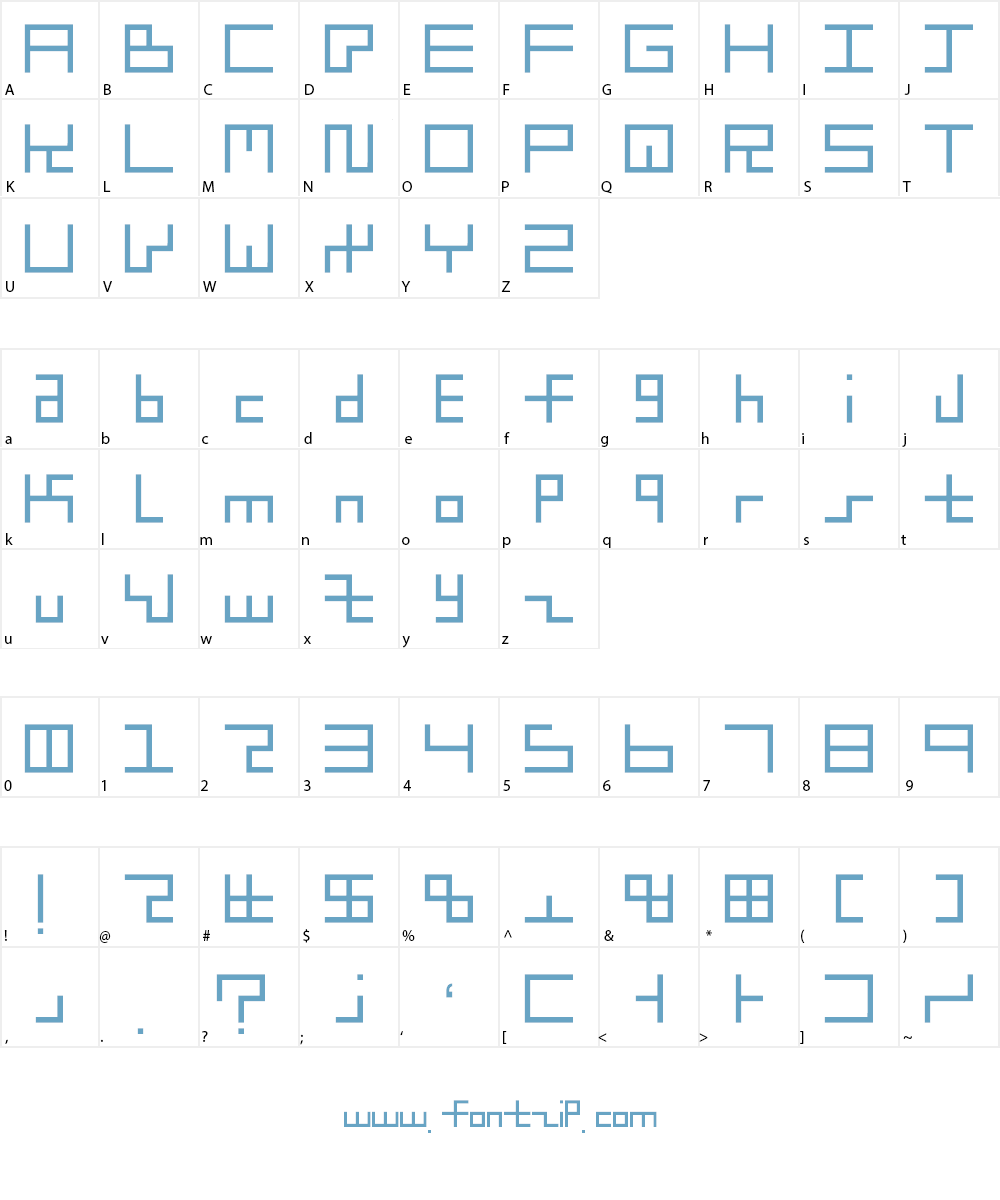
this was a fun little number... i was only allowed to use 3 vertical and 3 horizontal lines to make each glyph differ... the only exception is in the period, exclamation point, and question mark... since they end the thought process, i thought they should stand out a bit... hope you like it...